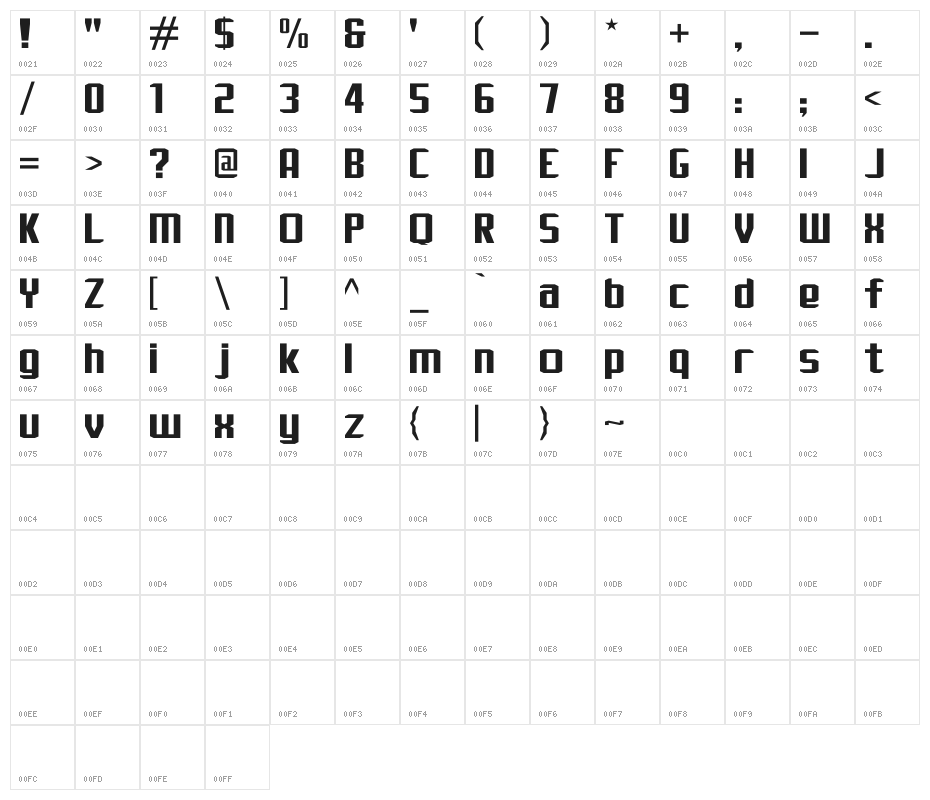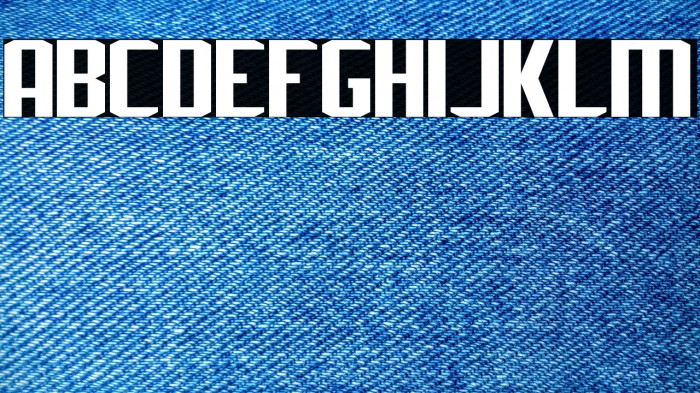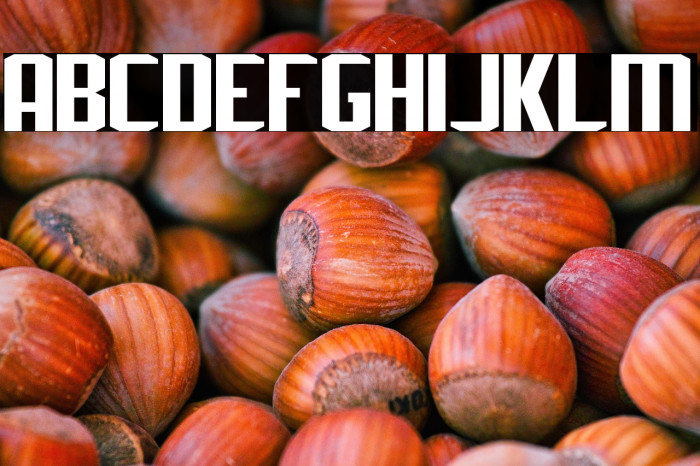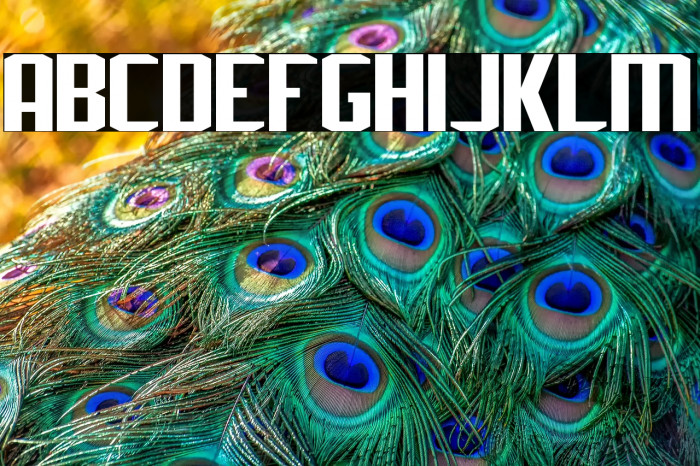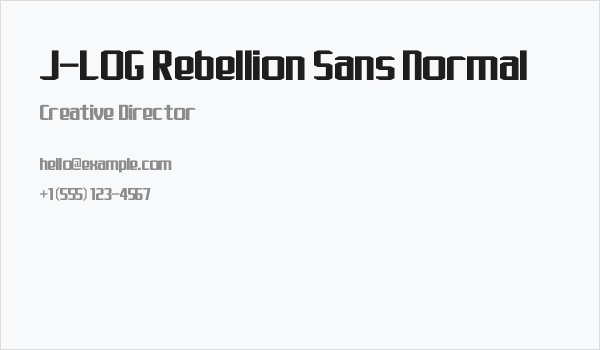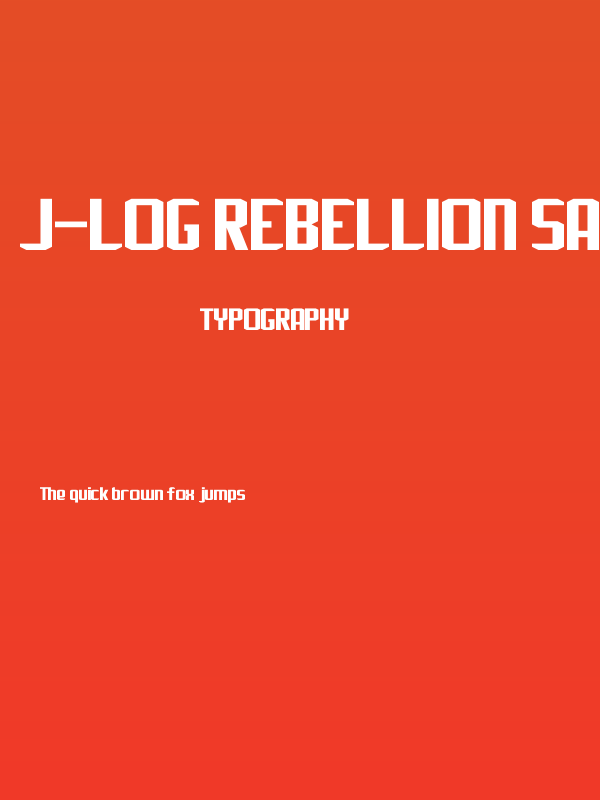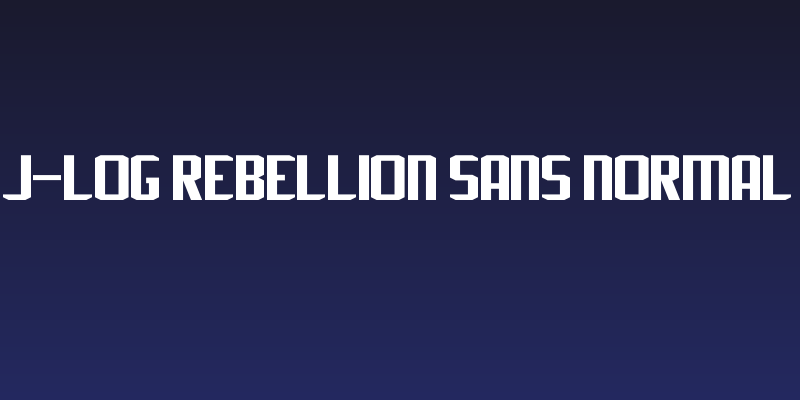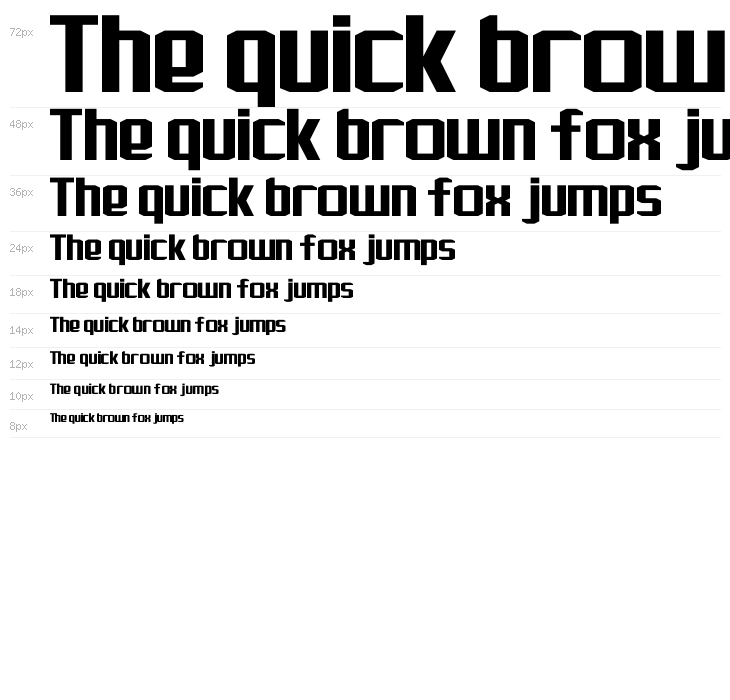
J-LOG Rebellion Sans Normal Font
J-LOG Rebellion Sans Normal Description
This font features a bold and geometric design with sharp, angular edges that give it a modern and rebellious feel. The uppercase and lowercase letters maintain a consistent height, creating a uniform appearance. The numerals are equally bold, with a distinct, blocky style that complements the overall aesthetic. Special characters are designed with the same angular precision, ensuring a cohesive look across all glyphs. The font's strong presence makes it ideal for impactful designs where attention is key.
| Proposed Projects | Ideal for branding, posters, headlines, and any project requiring a strong, modern aesthetic. |